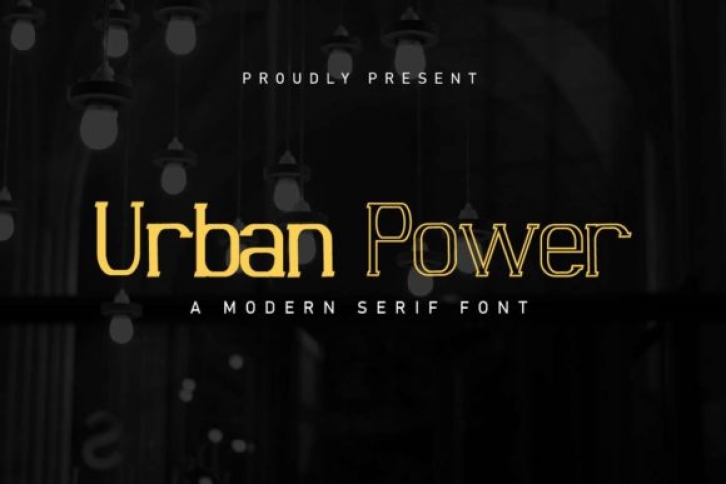
Urban Power is a unique and neat serif font. It can easily be matched to an incredibly large set of projects, so add it to your creative ideas and notice how it makes them stand out!